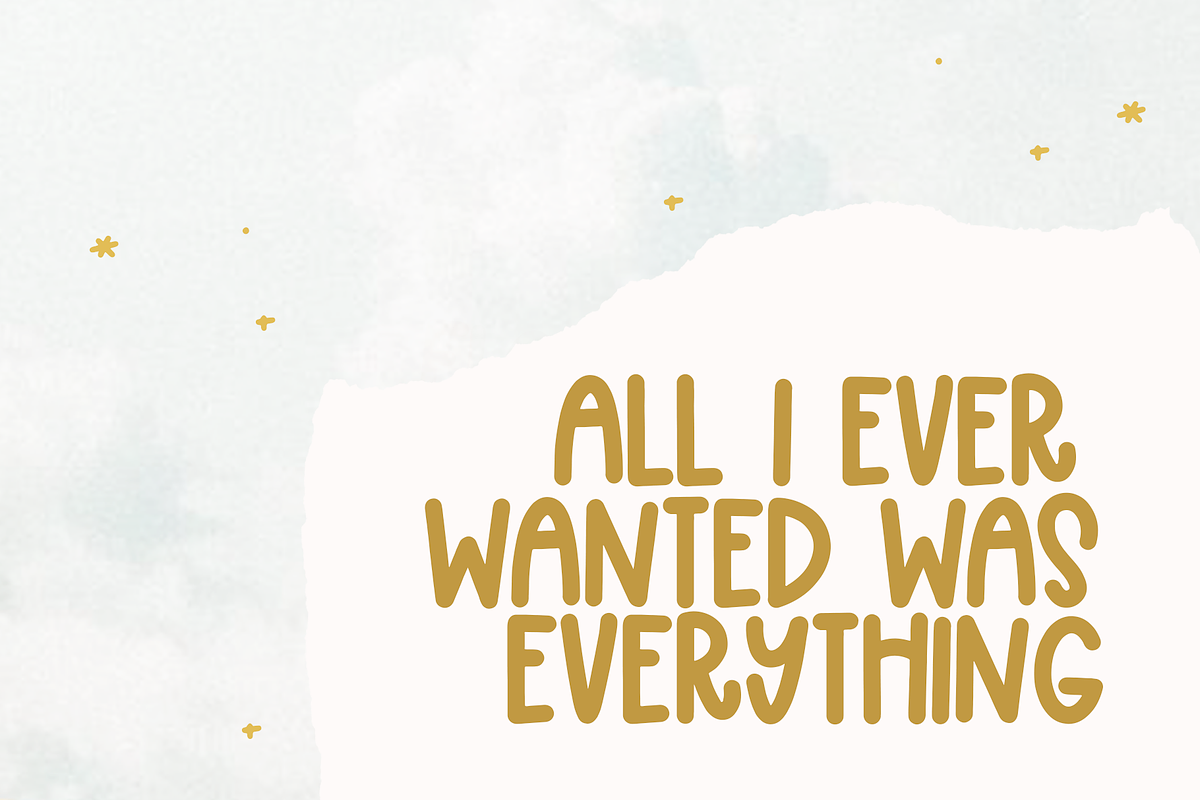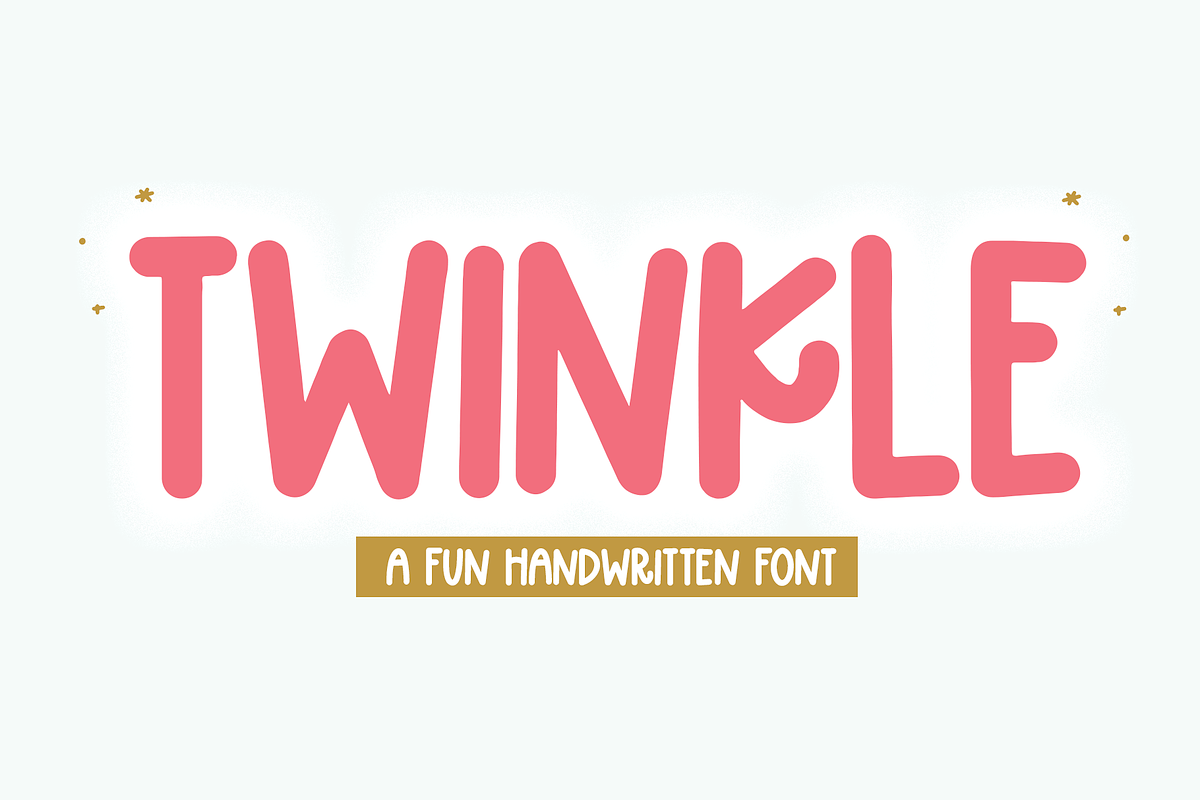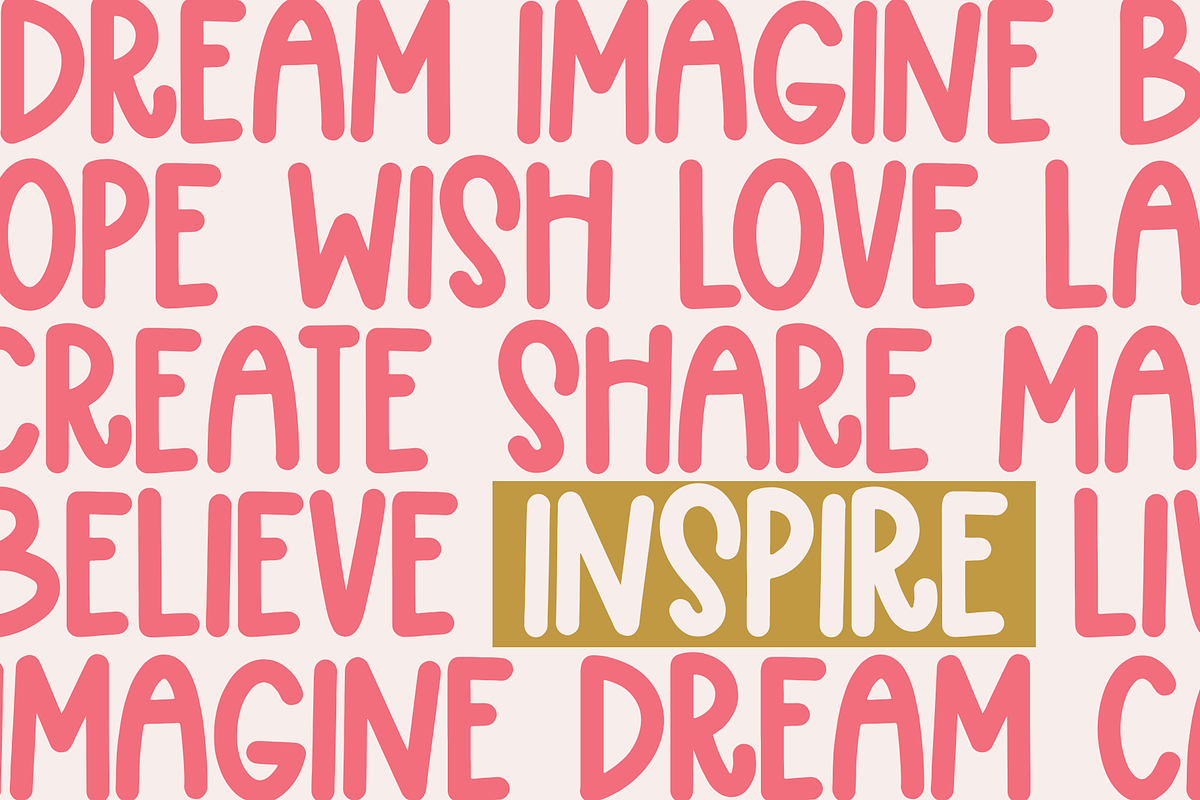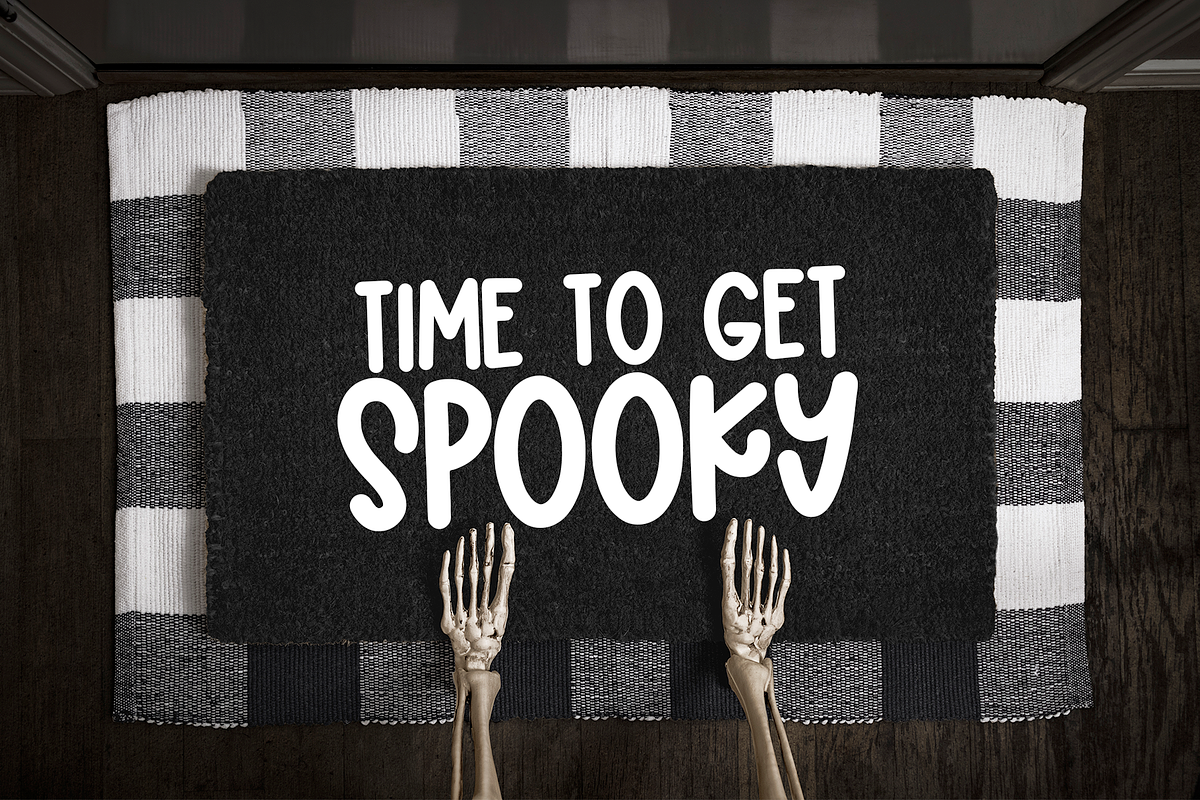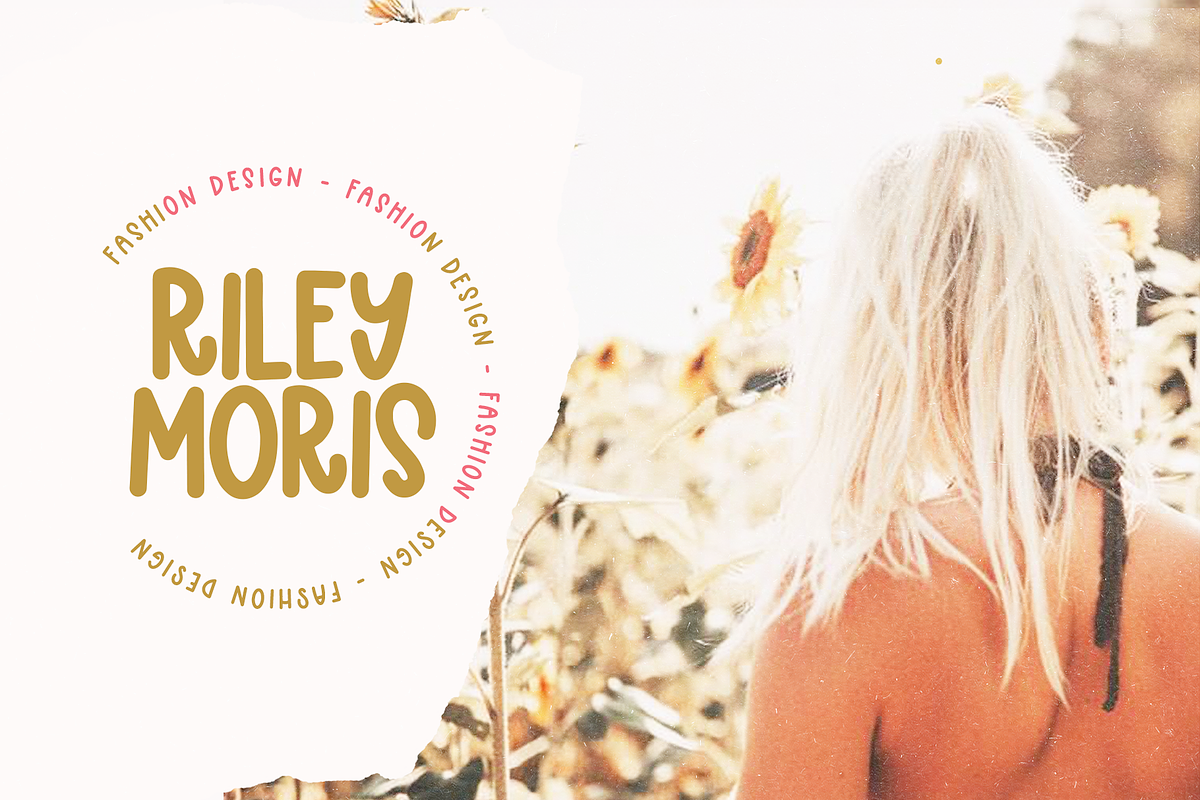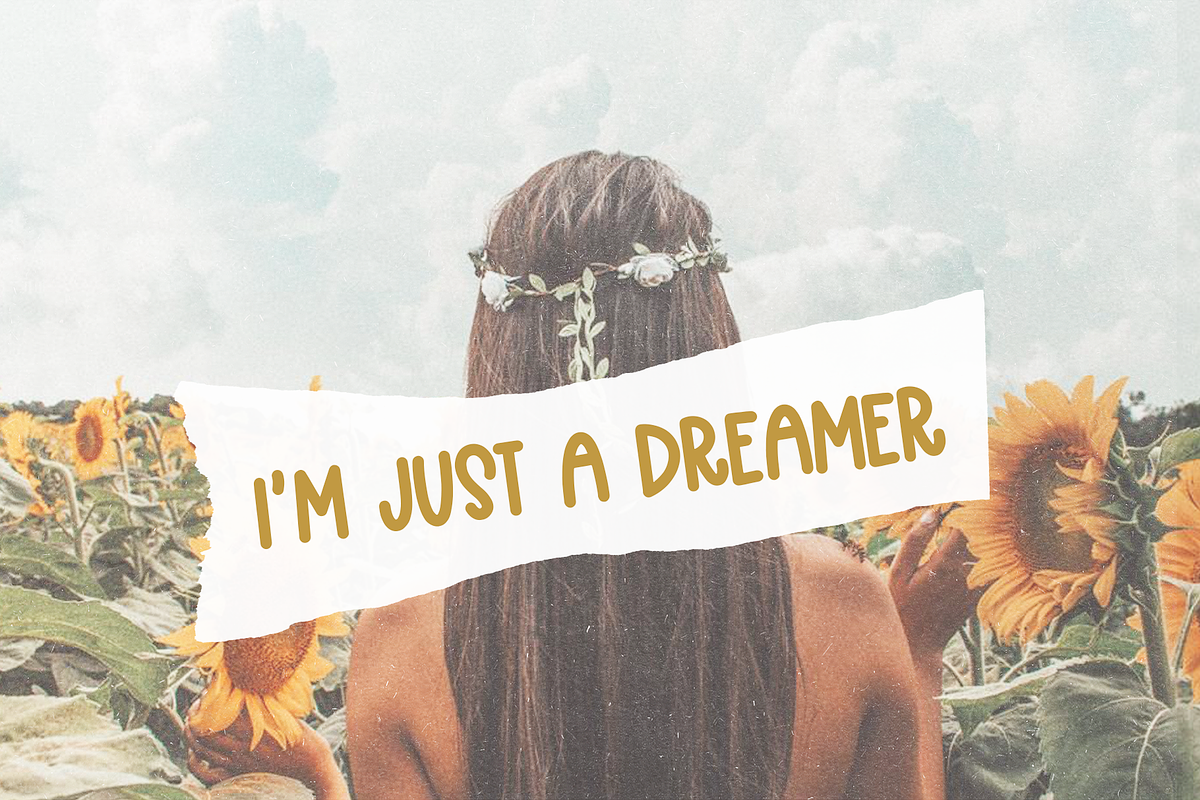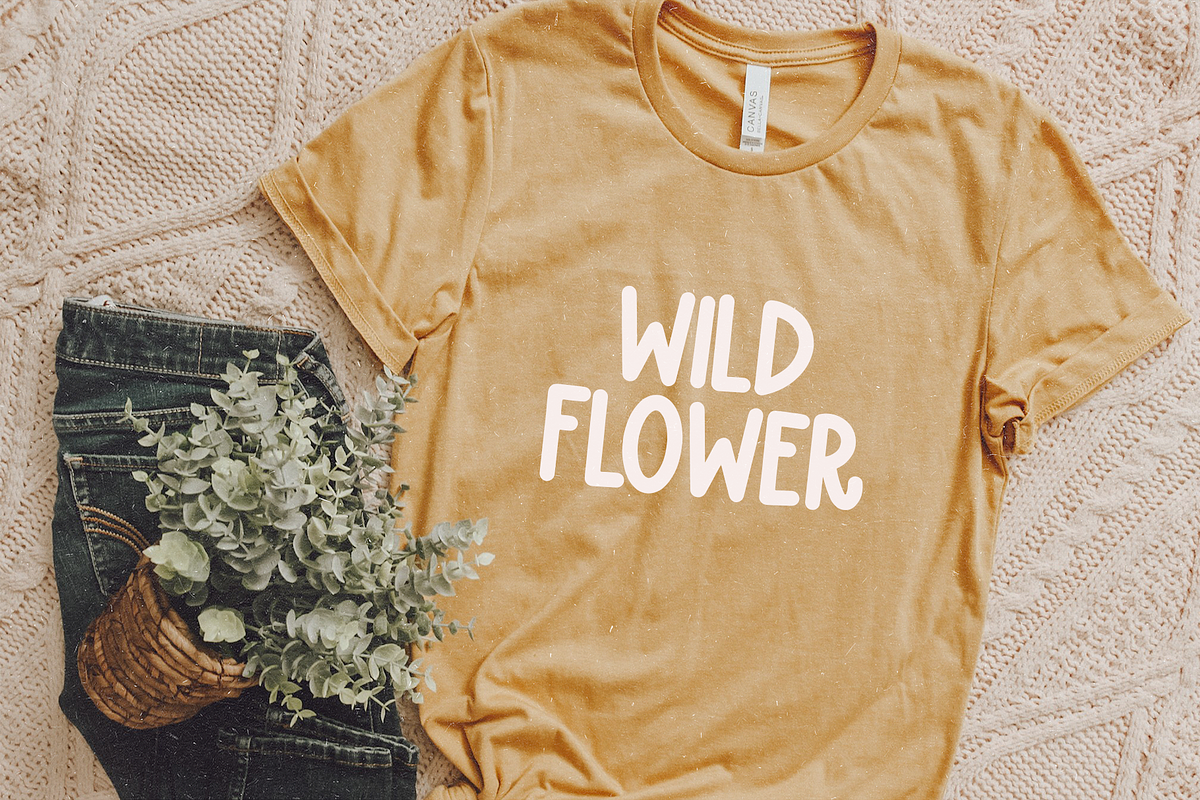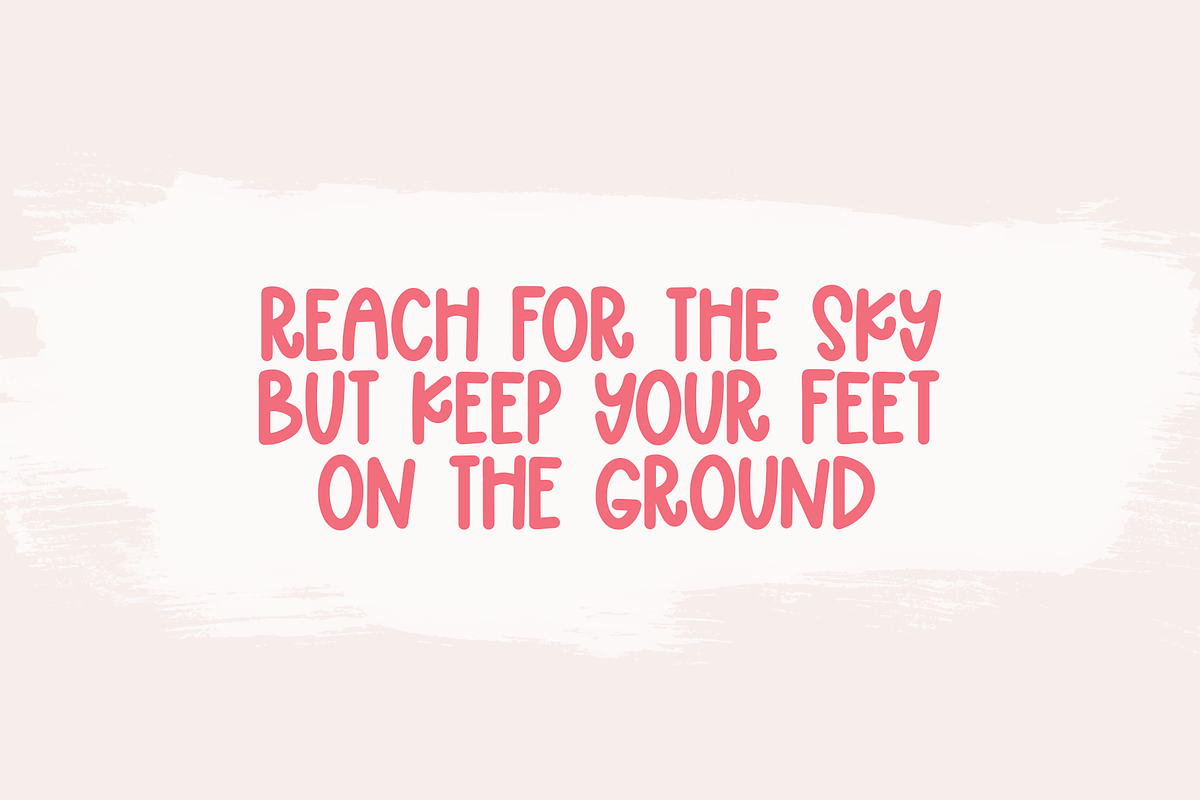
Twinkle | Handwritten Display Font
Twinkle is a handwritten font with quirky letters mixed in!
This font is perfect for web display, quotes, social media, branding, craft projects and more!
Twinkle | Handwritten Display Font by KA Designs fits naturally into Branding, posters, packaging, typography.